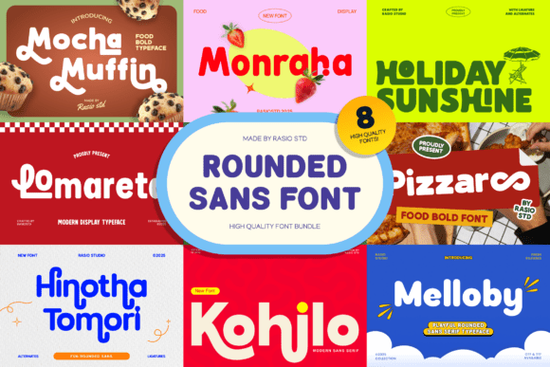
Looking for a font collection that feels friendly, modern, and easy to work with? The Rounded Sans Bundle Font is a curated set of typefaces with soft curves and clean letterforms designed for display use. It works especially well for branding, packaging, posters, and social media visuals where you want warmth without sacrificing readability.
This bundle brings together several rounded sans-serif fonts in one package, so you get variety without hunting for individual typefaces. If you've been mixing and matching fonts from different sources and struggling to find a consistent look, having a cohesive bundle like this saves time and keeps your projects visually unified.
What Makes Rounded Sans-Serif Fonts So Popular?
Rounded sans-serif fonts have been trending for years, and the reason is simple they feel approachable. Unlike sharp, geometric typefaces, rounded fonts soften the visual tone of any design. They suggest friendliness and trust, which is why so many brands in food, wellness, kids' products, and lifestyle spaces use them.
Think about some of the brands you see every day. Many use rounded letterforms in their logos and packaging because these fonts communicate warmth at a glance. If you're building a brand identity or designing product labels, a rounded sans-serif is a safe and effective starting point.
For comparison, Helvetica-style sans-serif fonts are clean and neutral but can feel corporate or cold. Rounded alternatives add personality while keeping that same legibility.
Who Should Use This Font Bundle?
This collection is versatile enough for a wide range of creative work:
- Print-on-demand sellers who need readable, eye-catching fonts for t-shirts, mugs, and tote bags
- Small business owners designing logos, menus, signage, or packaging
- Crafters working on stickers, invitations, and party decorations
- Social media managers creating Instagram posts, story templates, and Pinterest graphics
- Teachers and parents making worksheets, flashcards, and kids' activity sheets
The rounded letterforms hold up well at larger sizes, which makes them ideal for headlines, titles, and bold display text. They're not designed for long paragraphs, but that's not what display fonts are for anyway.
How Does It Compare to Other Options?
If you're exploring other rounded or playful fonts on Creative Fabrica, there are a few worth considering alongside this bundle:
The Agootack font offers a different stylistic approach with its own character, while the Pretzel font leans into a more whimsical, hand-lettered feel. For something bolder and more dramatic, the Grandeur typeface takes things in a completely different direction.
The advantage of a bundle over a single font is flexibility. Instead of committing to one style, you get multiple rounded sans options to match different moods and projects. One might work perfectly for a kids' birthday invite, while another fits better for a modern café menu.
What Projects Work Best with Rounded Fonts?
Based on how these fonts are typically used, here are some of the most common applications:
- Food packaging rounded fonts suggest freshness and friendliness
- Children's products soft shapes feel safe and playful
- Wellness and lifestyle brands approachable without being too casual
- Event invitations especially birthdays, baby showers, and casual gatherings
- Apparel graphics bold rounded text looks great on clothing
One thing to keep in mind: rounded fonts pair well with clean, neutral sans-serifs for body text. Use the rounded display font for headlines and pair it with something simpler for paragraphs to maintain balance in your layouts.
Quick Checklist Before You Buy
Before purchasing any font bundle, make sure you've covered these steps:
- Check the license confirm it covers your intended use (personal, commercial, POD, etc.)
- Preview the fonts type out your brand name or project title to see how it looks
- Test readability rounded fonts can blur together at very small sizes, so test at your target size
- Consider font pairing plan what body text font you'll use alongside the rounded display font